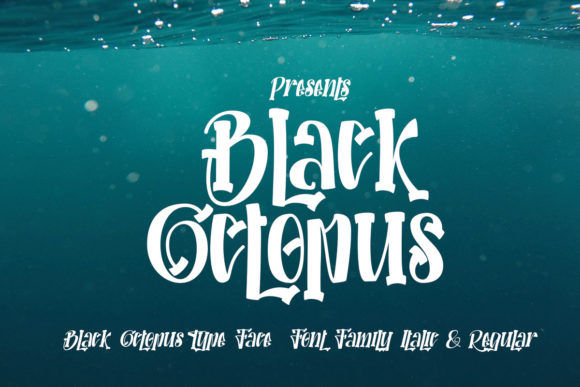
Prepare to embark on an extraordinary typographic voyage with Black �Octopus, an inimitable display font crafted by the visionary artist, jehansyah251. Its captivating, larger-than-life personalities are ready to inject your visual creations with a surge of creativity and charm.
Dive into the depths of unbridled imagination with this font, and experience the awe-inspiriting fusion of modern and whimsical aesthetics that's sure to leave you spellbound. Each letter dances across your screen, carrying with it a captivating narrative that transcends the boundaries of time and space.
Black �Octopus is more than just a font; it's an artistic conduit, a magical wand that transforms your ordinary designs into extraordinary masterpieces. With its distinctive character, this font has the power to transform the mundane into the magnificent.
Harness the allure of Black �Octopus to weave your own typographic tapestry. Its versatile letterforms can be effortlessly tailored to suit your creative vision, effortlessly enhancing the overall impact of your designs. Unleash your inner artist and let this font guide you through a realm of unbounded creativity.